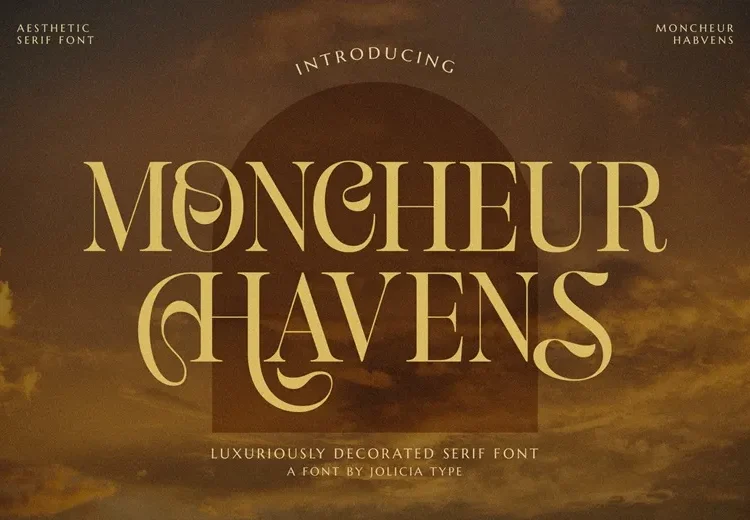
Moncheur Havens Font
Moncheur Havens Font is a beautiful serif typeface that combines classic elegance with a modern twist. This font offers both normal and italic styles, making it versatile for any design needs. Its refined look makes it suitable for various display purposes, and the details added to each letter give it an interesting and clear appearance, ideal for branding and editorial design.
The font also features nice alternative swashes, adding a layer of creativity and uniqueness to your design process. The other characters come with smooth curves, providing flexibility in use and allowing for the creation of distinctive and stylish designs.